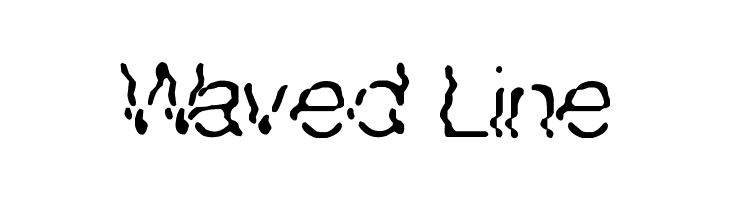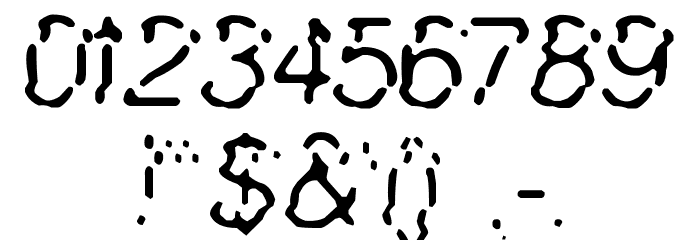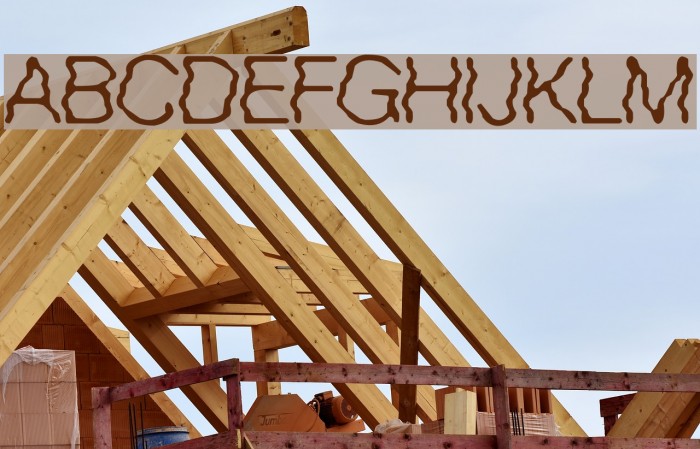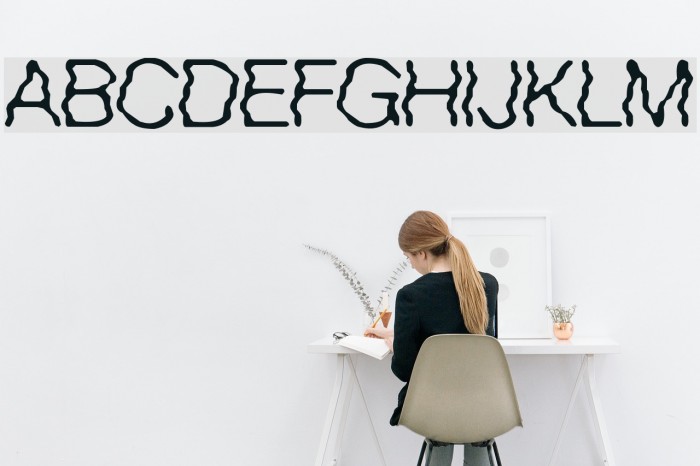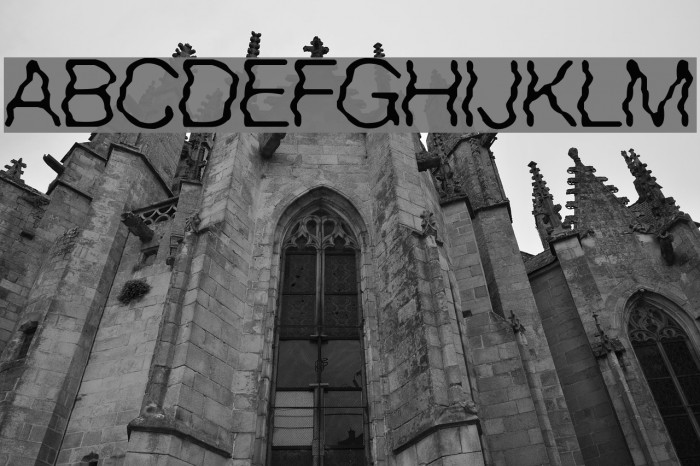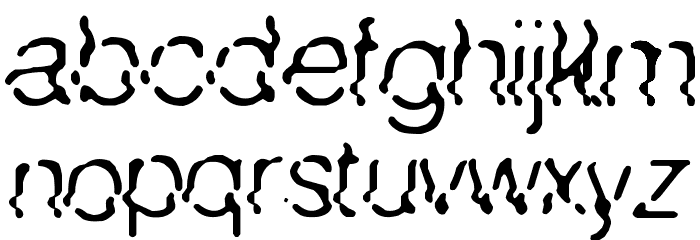
Waved Line Font
Waved Line Description
This font features a unique and playful design with wavy, undulating lines that create a sense of movement and fluidity. The characters are bold and distinct, with a decorative style that makes them stand out. The uppercase and lowercase letters maintain a consistent wave pattern, giving the font a cohesive look. Numbers and special characters are also designed with the same wavy effect, ensuring uniformity across all glyphs. This font is perfect for projects that require a fun and eye-catching aesthetic.
A playful, wavy font with a bold, decorative style from Broken fonts.